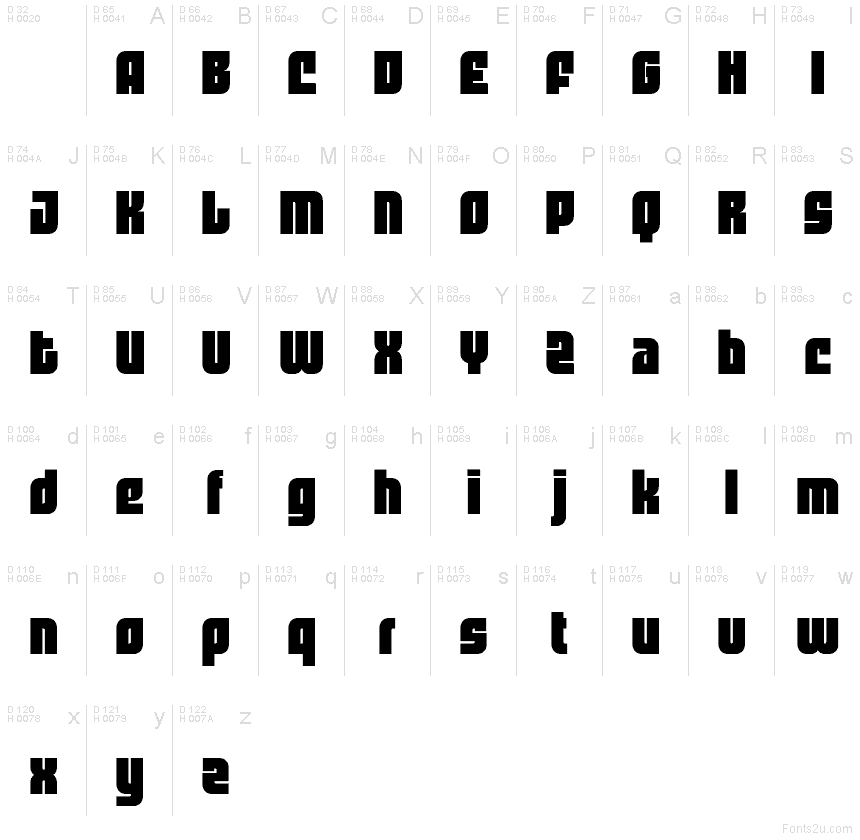
CS Gibson Regular Demo
CS Gibson font by Craft Supply Co. is a bold display font with a modern geometric design. The sleek, minimalistic strokes feature sharp corners that give the font its impactful and futuristic appeal. Letters flow harmoniously to create an exceptional addition to various design projects.
Use this free display font in contemporary branding, business cards, posters, digital advertisements, websites, t-shirt designs, mobile apps or gadget UI/UX interfaces and video game graphics. Bring your professional presentations to life with CS Gibson using resourceful different means and more!